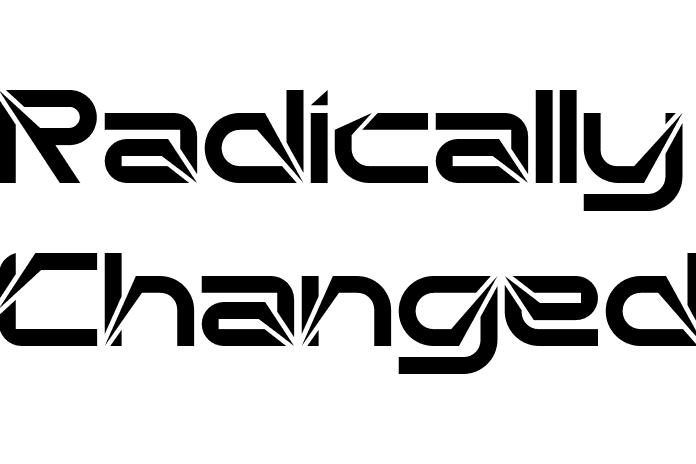
Avint Bold
Introducing the modern Avint Bold Font, is a cool and modern techno looking display Font This font is ideal for writing web designs, business cards, or pretty much anything else that requires a unique touch, this font designed by bringtypestudio.co is available for free download and personal use.
Font designer bringtypestudio.co
Typeface classification Techno